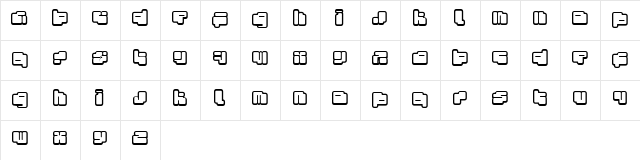
foton torpedo Fenotype
foton torpedo is a composed and adaptable typeface that performs quietly and consistently across a wide range of design contexts.